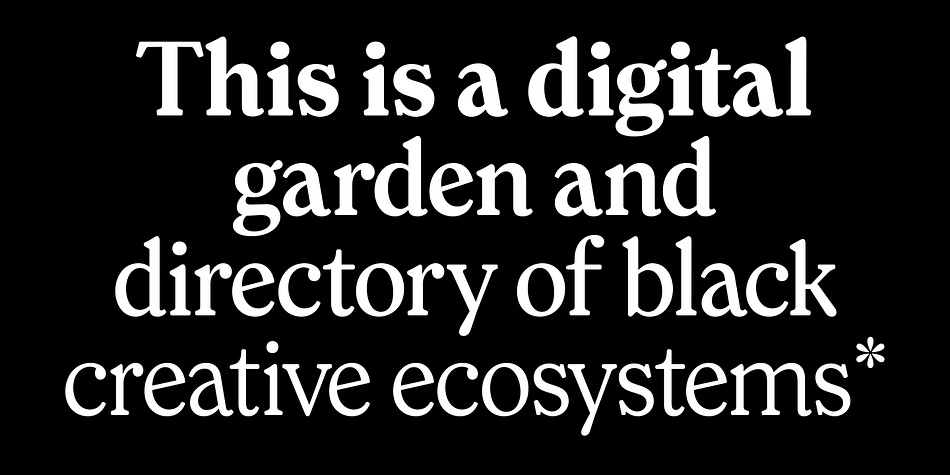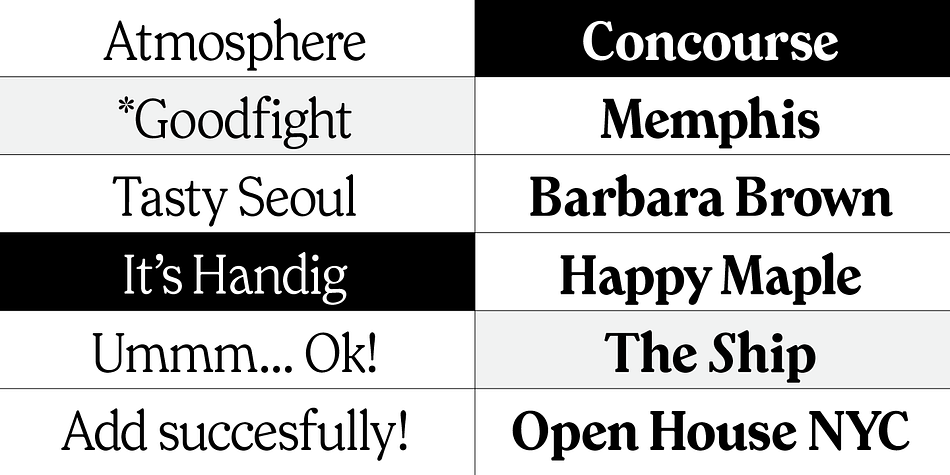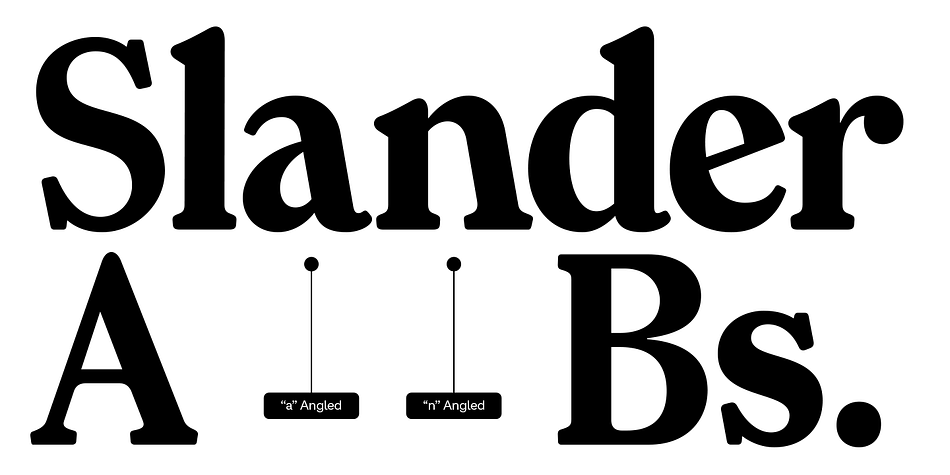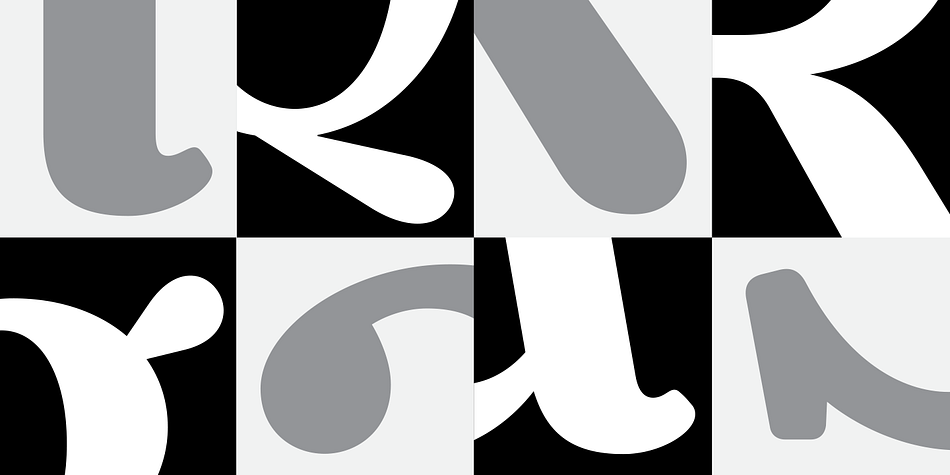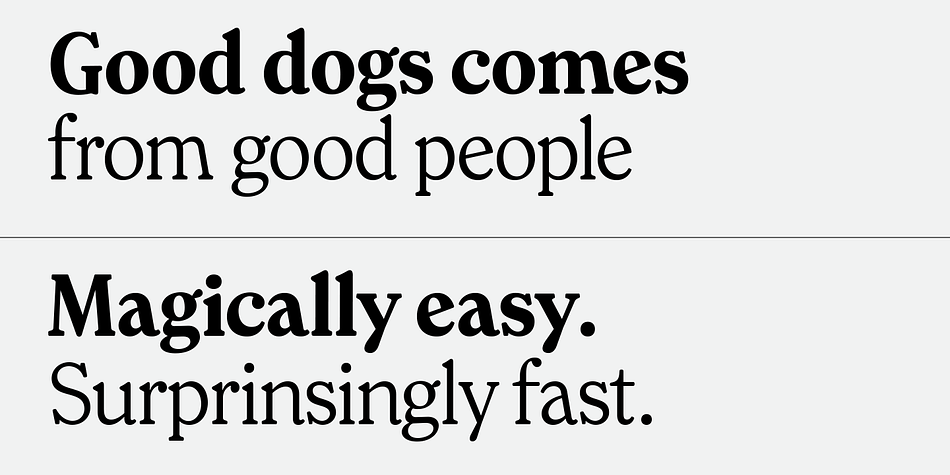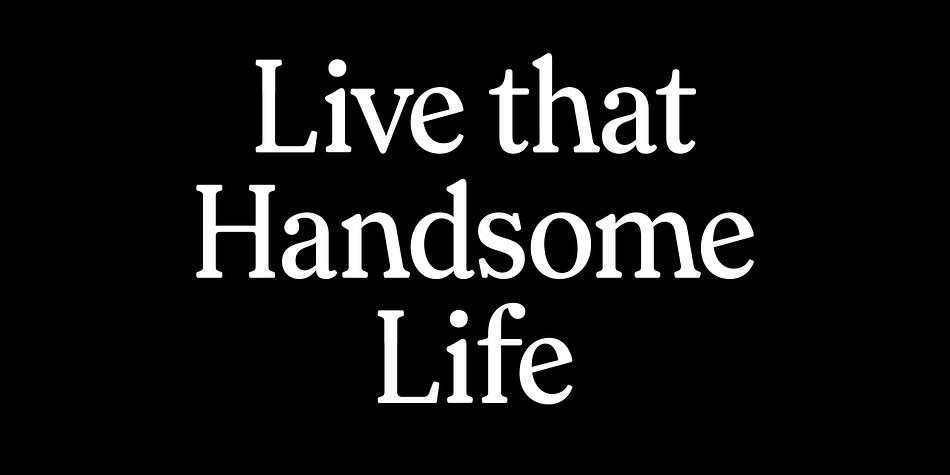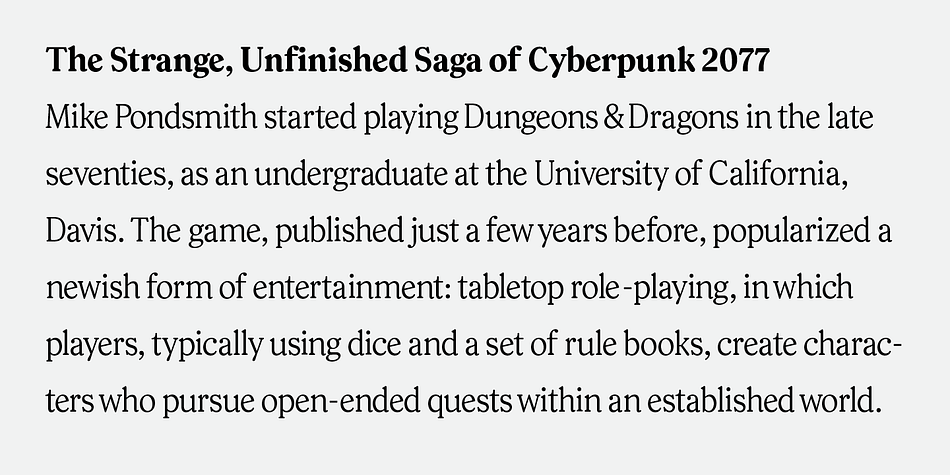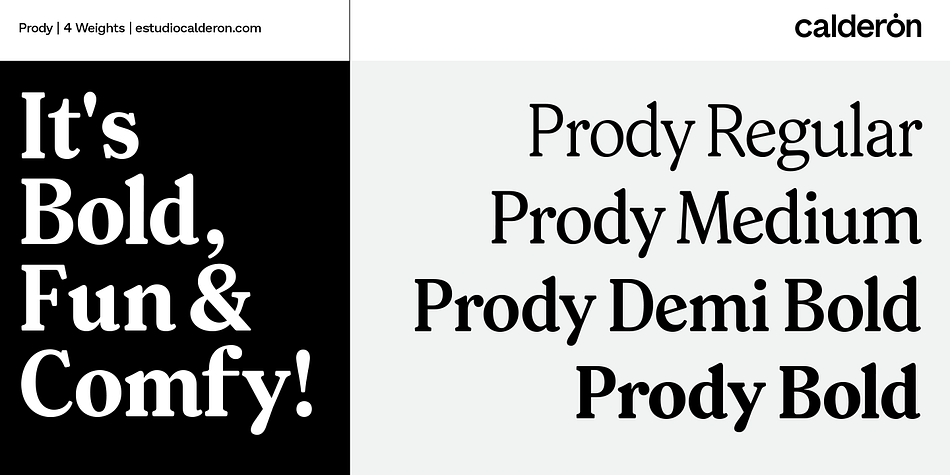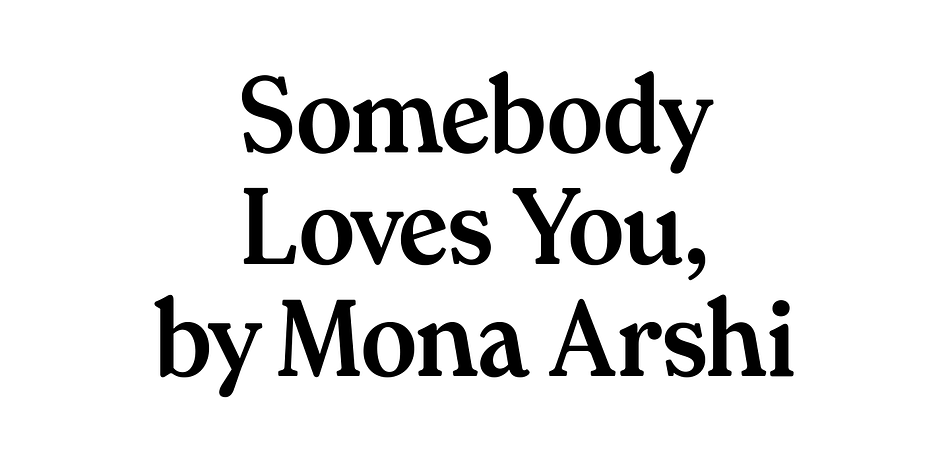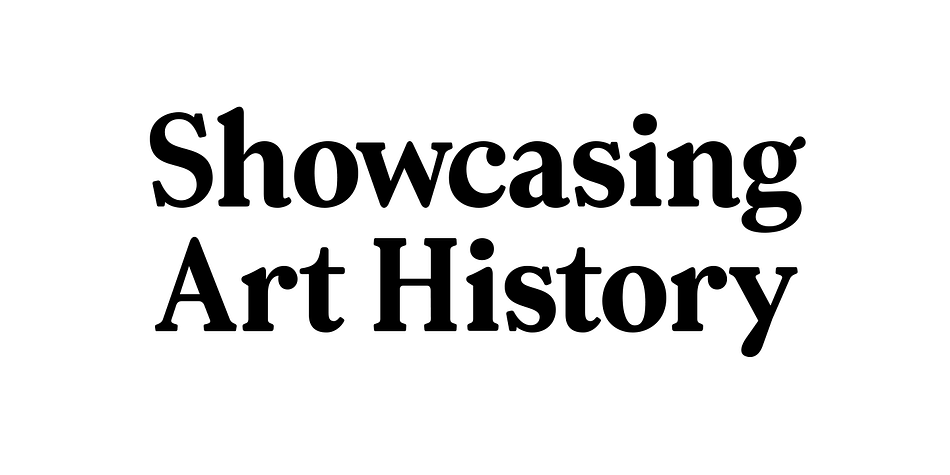
Prody is a retro and serif font family. This typeface has four styles and was published by Estudio Calderón.
A clean, elegant and modern serif that has a strong personality thanks to its soft endings, rounded terminals, inspired from Cheltenham, Belwe and Souvenir. Prody is equipped for complex, professional typography. The OpenType fonts have an extended character set to support Central and Eastern European as well as Western European languages.